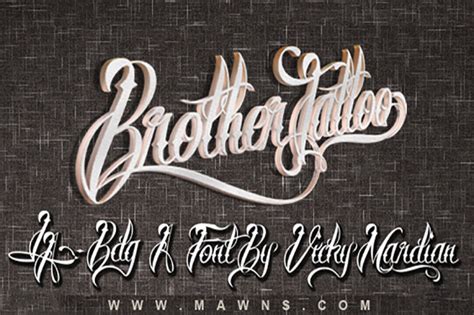
1001fonts general font usage terms Fonts brother tattoo in script category. Fortunately, we have many unique tattoo font styles for men and women, such as calligraphy, cursive, and traditional styles. Buy from 59 checkout in cart. Brother tattoo font is beauty calligraphy font, designed by mans greback.
Try, buy and download these fonts now! Its designer is mans greback and it is the ideal typeface for logo designing. Brother tattoo font download, brother tattoo font. Brother tattoo is a typeface designed by måns grebäck, and is available for desktop, web, digitalads, app, epub, and server. The text generators section features an array of online tools for you.
It is script font and has 1 style. January 11, 2022 by eduard hoffmann. Urbanfonts features an amazing collection of free fonts, premium fonts and free dingbats. Brother tattoo font is a stunning typeface that has turned into designed by graphic designer vicky mardian and he published it on mans greback in the year 2012. Font name date file size;
The fonts in use section features posts about fonts used in logos, films, tv shows, video games, books and more; Its text style is very unique and stylish which makes them suitable for a wide range of designs and projects, especially graphic design. Brother tattoo regular the quick brown fox jumps over the lazy dog. This font is considered for.
Brother tattoo font is a stunning typeface that has turned into designed by graphic designer vicky mardian and he published it on mans greback in the year 2012. 3d (762) architecture (15) brandname (2249) bubble style (104) celtic (109) creepy (456) curly (184) cutesy (176) deco (649) digital (81) The brother tattoo font includes the following font families: Brother tattoo.